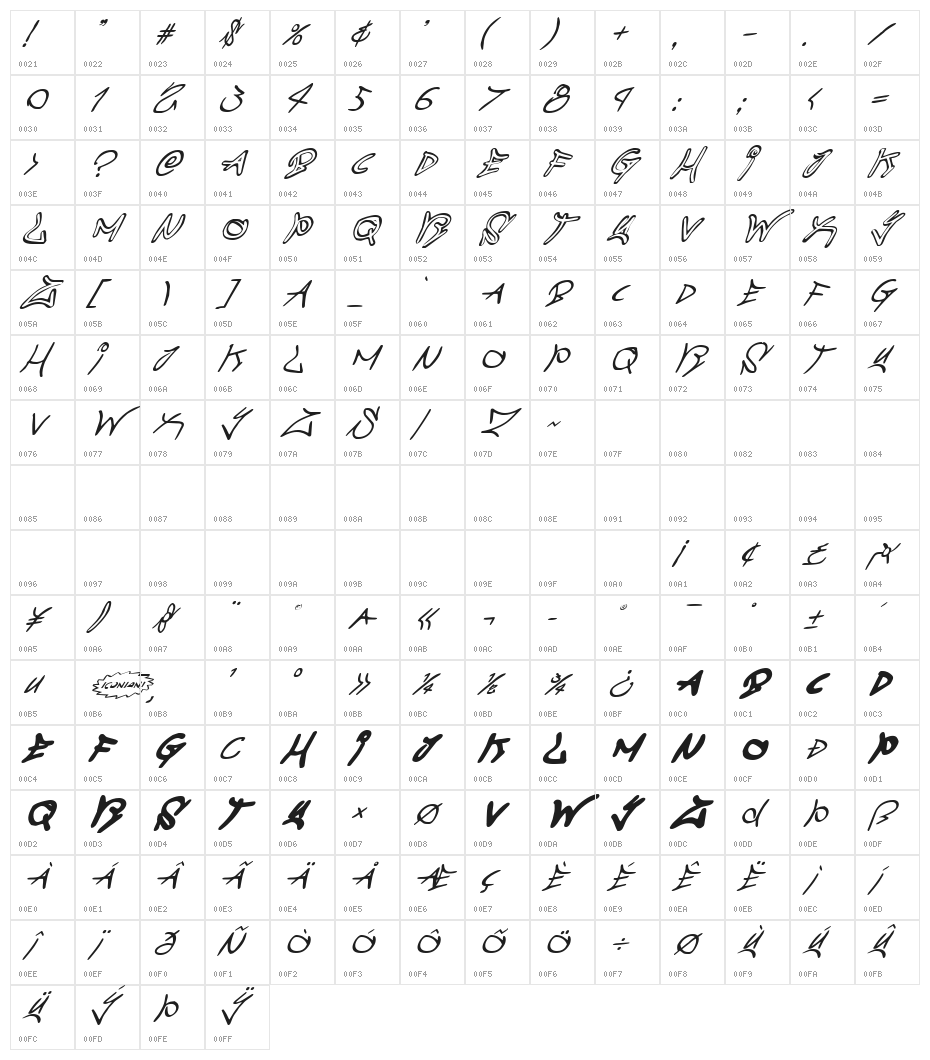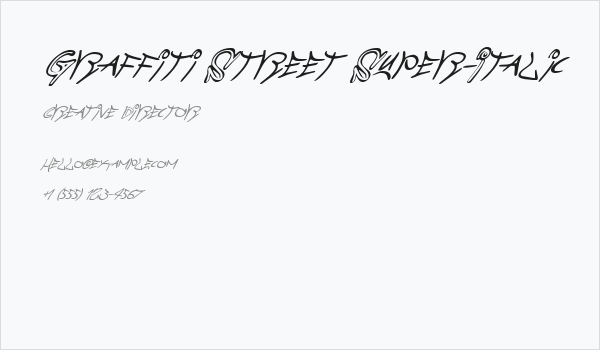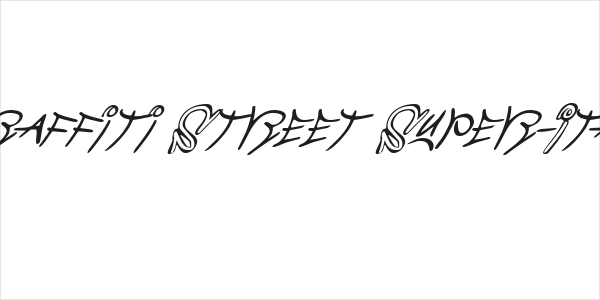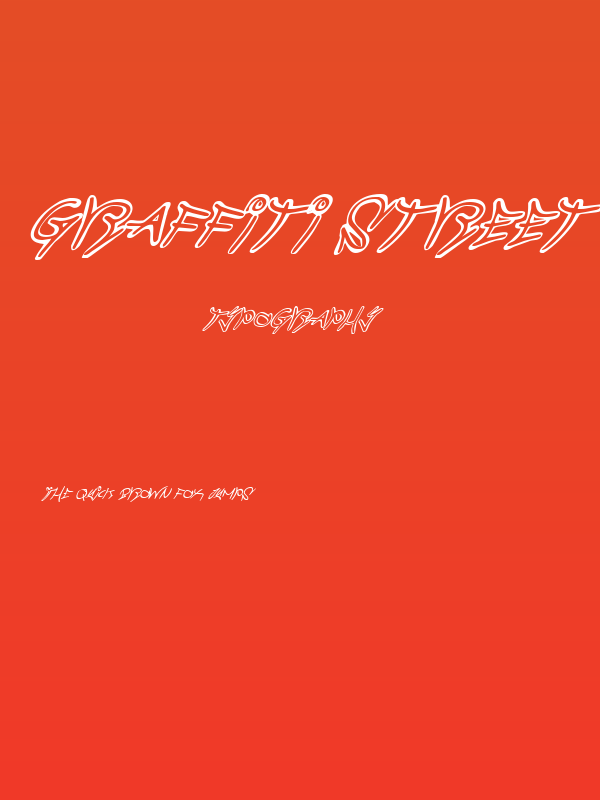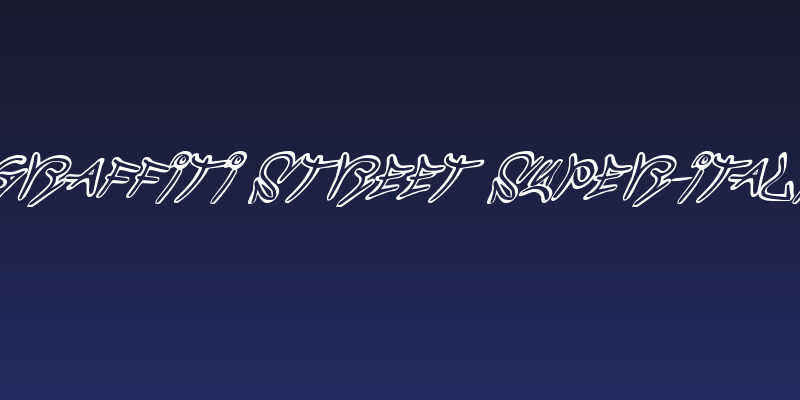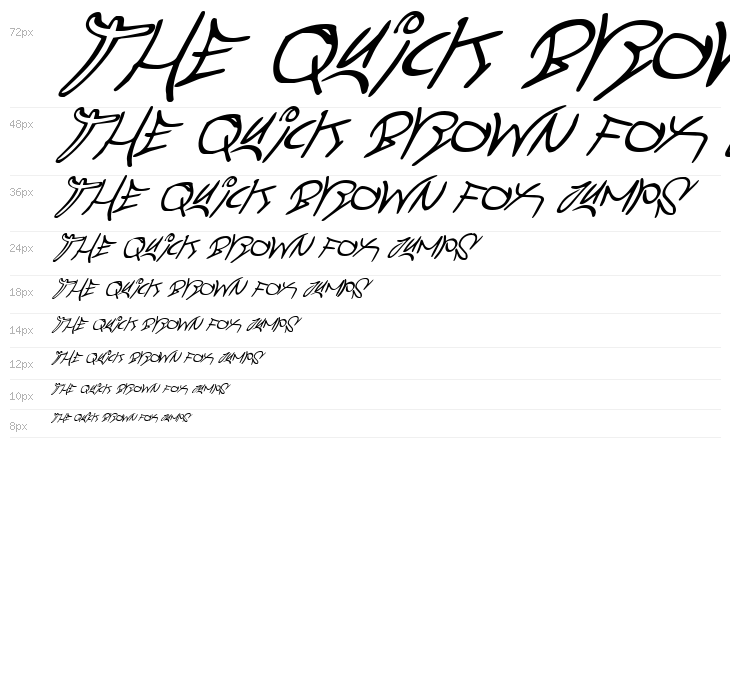
Graffiti Street Super-Italic Font
Graffiti Street Super-Italic Description
This font exudes a dynamic and urban vibe, reminiscent of street art and graffiti. The characters are bold and slanted, giving a sense of movement and energy. Each letter is uniquely styled with sharp edges and fluid curves, creating a sense of spontaneity and creativity. The uppercase and lowercase letters maintain a consistent style, while the numbers and special characters complement the overall aesthetic. This font is perfect for projects that require a bold statement and a touch of rebellious flair.
| Overall Style | Modern, Urban |
| Proposed Projects | Ideal for street art projects, urban-themed designs, music album covers, and edgy branding materials. |